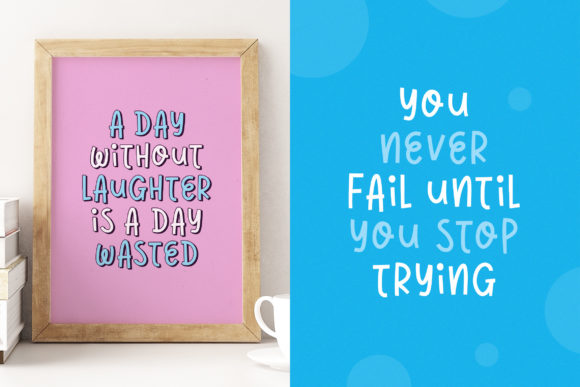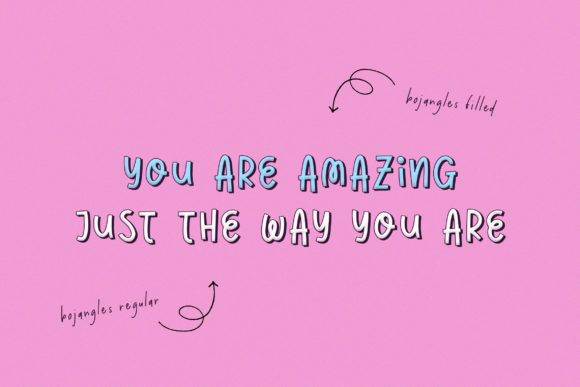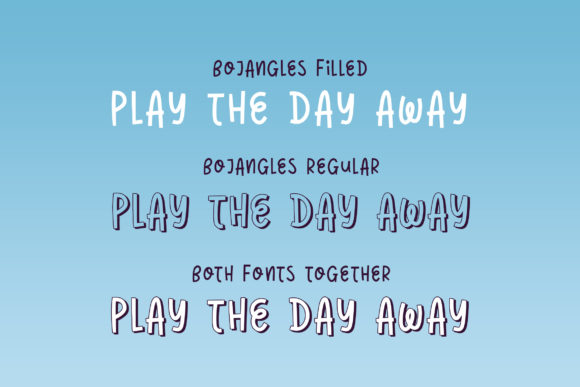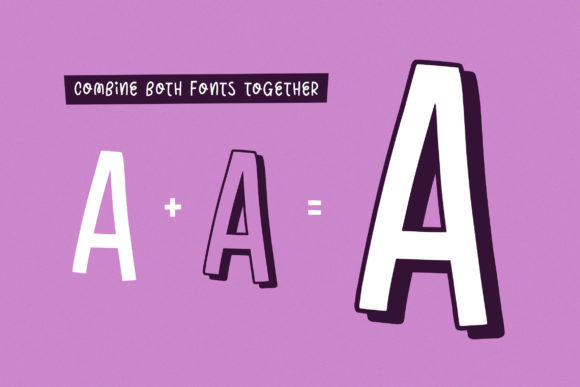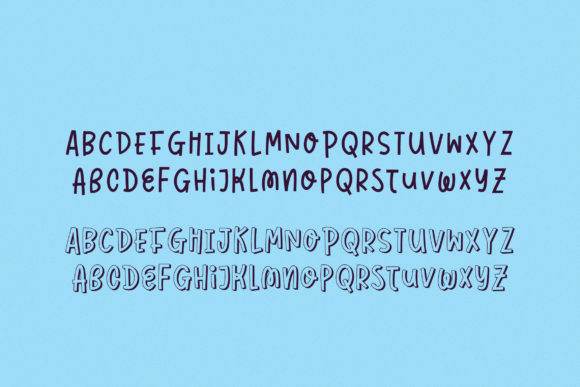
The Perfect Recipe for a Delicious Design: Introducing Bojangles Font
As designers, we’ve all been there – staring at a blank canvas, trying to conjure up the perfect idea. The cursor blinks, and our minds go blank. But what if we told you that there’s a secret ingredient that can add a dash of magic to your designs? It’s not a new trend or a revolutionary tool, but rather a font that’s as sweet as it is versatile – the Bojangles Font.
This fun and playful display font is the perfect addition to any design project. Its carefree spirit and lively feel make it a wonderful choice for brightening up your designs. Whether you’re working on a logo, a social media campaign, or a marketing brochure, the Bojangles Font is sure to bring a smile to your face and a touch of whimsy to your work. As a designer, you know how valuable it is to have a reliable font that can add a little extra something to your creations – and the Bojangles Font is just that.
Bojangles Font Key Features
- Unique Characteristics: Bojangles font features a distinctive, hand-drawn style with a warm and inviting feel, making it ideal for use in branding and advertising materials.
Bojangles Font Review
I recently had the chance to work with the Bojangles Font, and I must say it’s a unique blend of modern and traditional typography. ✨ One thing that immediately caught my attention was the font’s bold and playful personality, which makes it perfect for branding and advertising materials.
The Bojangles Font is highly customizable, offering a range of weights, styles, and even color options. This versatility makes it easy to adapt to various design contexts, from digital screens to print materials.
- ✨ Bold and playful personality, perfect for branding and advertising
- ✨ Highly customizable with various weights, styles, and color options
- ✨ Suitable for digital screens and print materials
- ⚠️ The font may be too bold and overwhelming for certain design contexts
- ⚠️ Limited availability in web fonts, which may cause compatibility issues
- ⚠️ Some users may find the font too modern or trendy, which may not appeal to more traditional design tastes
Overall, I would say the Bojangles Font is a solid choice for designers looking for a bold and playful typography solution. However, it’s essential to consider the limitations and ensure the font aligns with your design goals and target audience.
The Bojangles Font is ideal for:
Brand identity and logos.
Food and beverage packaging.
Restaurant and cafe signage.
Advertising and marketing materials.
Use the Bojangles Font to create a cohesive and recognizable brand image.
Pair the Bojangles Font with other fonts to create a unique and eye-catching combination.
Comparison to Bojangles Font: While Bojangles Font has a rustic and casual feel, Playfair Display is more refined and sophisticated. Bojangles Font is more suitable for casual dining and fast food brands, while Playfair Display is better suited for high-end restaurants and luxury brands.